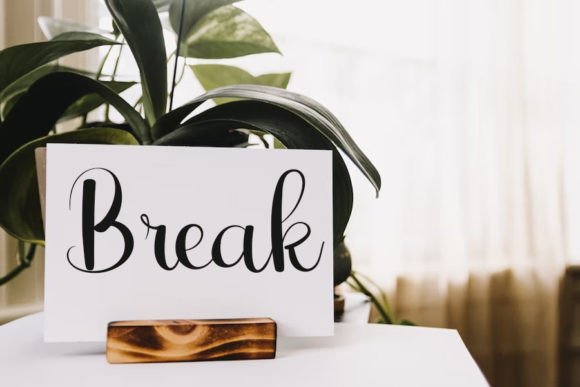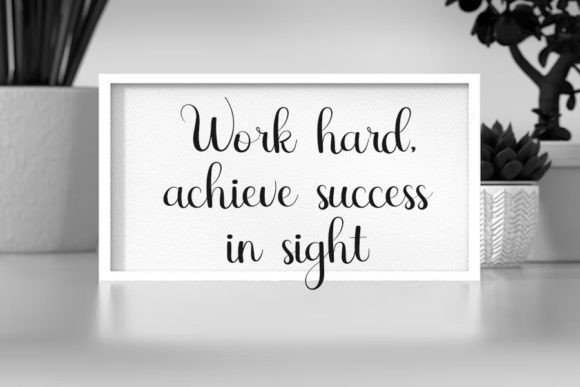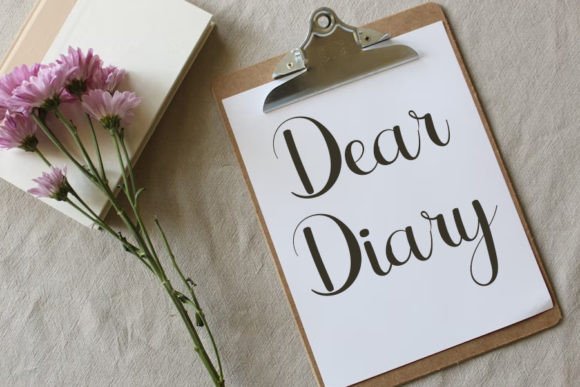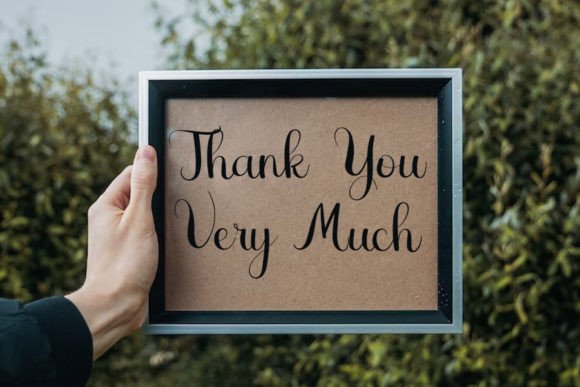
Wallet Font
About Wallet Font
Wallet font is a fresh and neat handwritten script designed to add charm and personality to your creative projects. When you download Wallet font, you get a versatile typeface that blends modern style with the warmth of handwritten lettering.
Wallet font stands out for its clean and polished strokes, making it perfect for a wide range of design ideas. It offers a handcrafted feel that enhances logos, branding, social media posts, invitations, and more. By choosing to download Wallet font, you invest in a tool that elevates the look of your projects with elegance and simplicity.
Ideal Uses for Wallet Font
This font is highly adaptable and suitable for various creative needs, including:
• Unique crafting projects that need a personal touch
• Digital designs such as blog headers and social media graphics
• Greeting cards and wedding invitations that call for sophistication
• Branding and logo design where clarity and style matter
Wallet font’s fresh handwritten script makes it an excellent choice for designers who want to blend professionalism with a human touch.